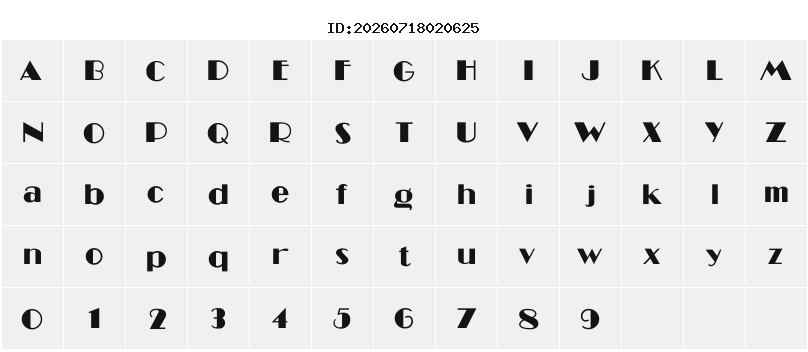
BD Miami Preview
• Font Name: BD Miami
• Full Font Name: BD Miami
About BD Miami.ttf
BD Miami.ttf is a modern, elegant sans-serif font designed for ultimate readability and visual harmony. Perfect for branding, headlines, web design, and print materials.